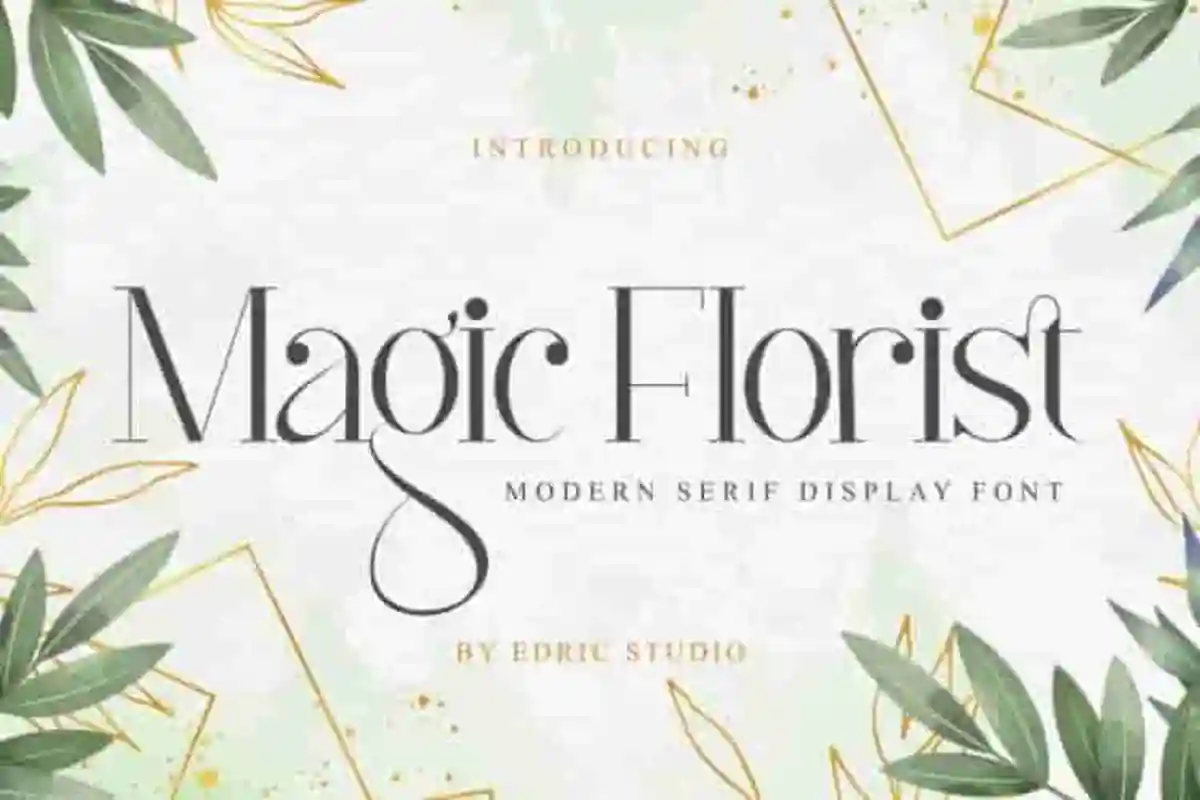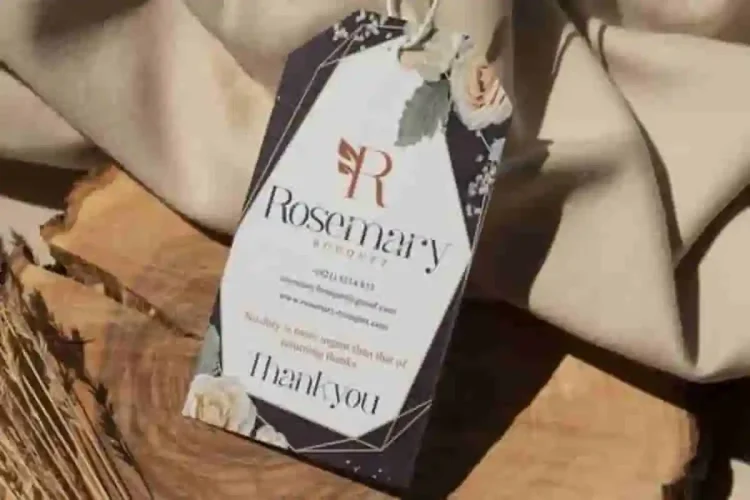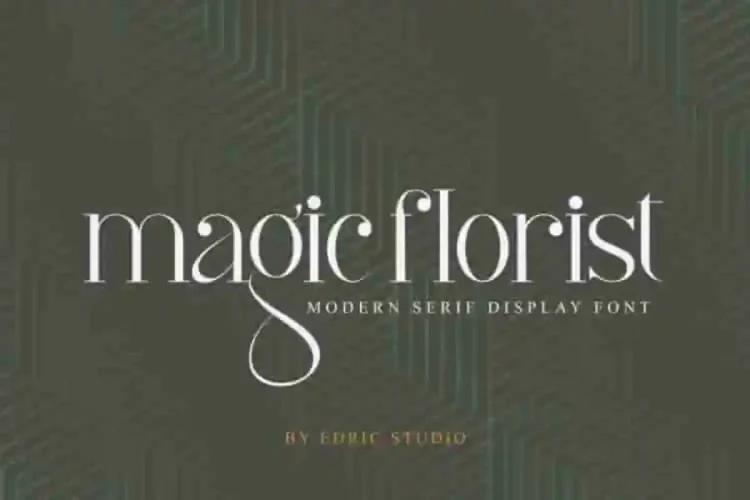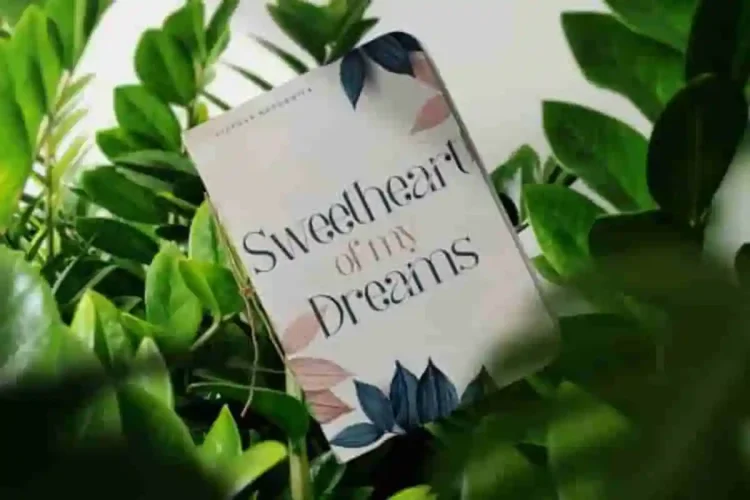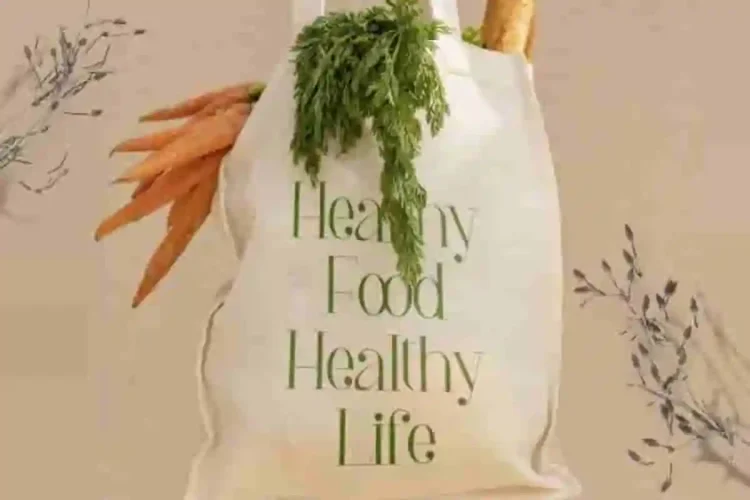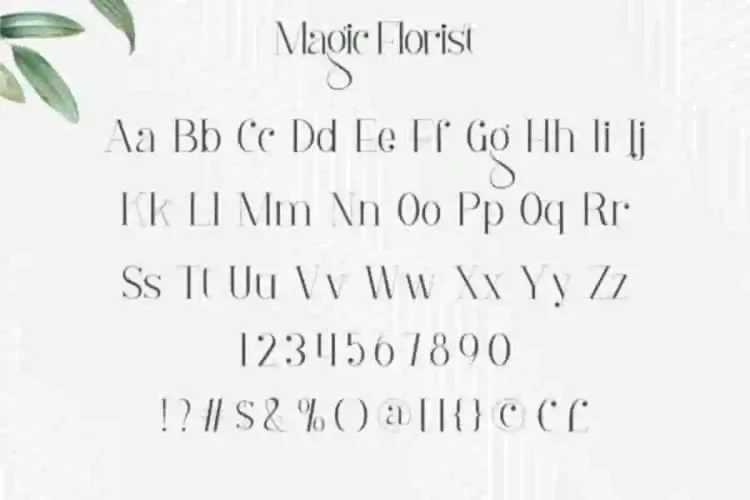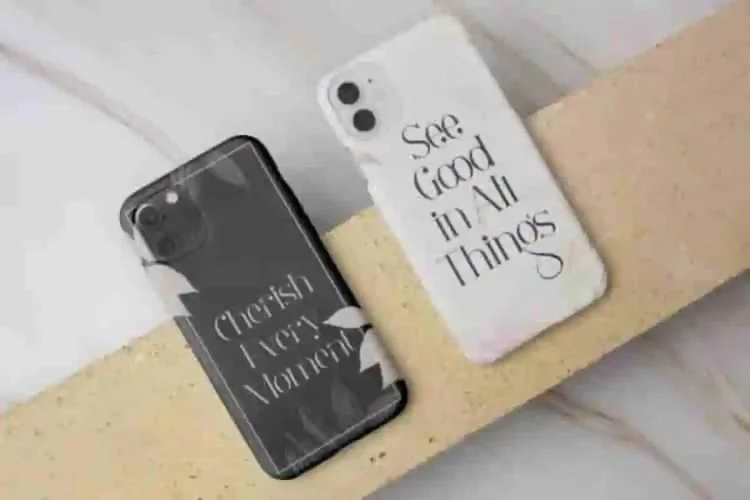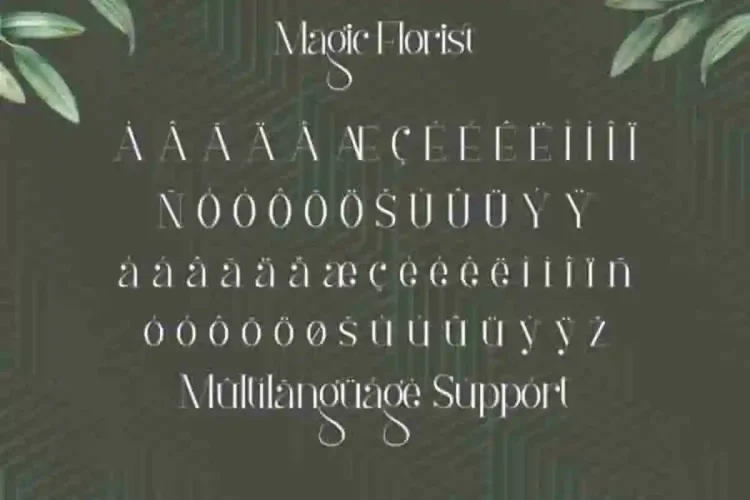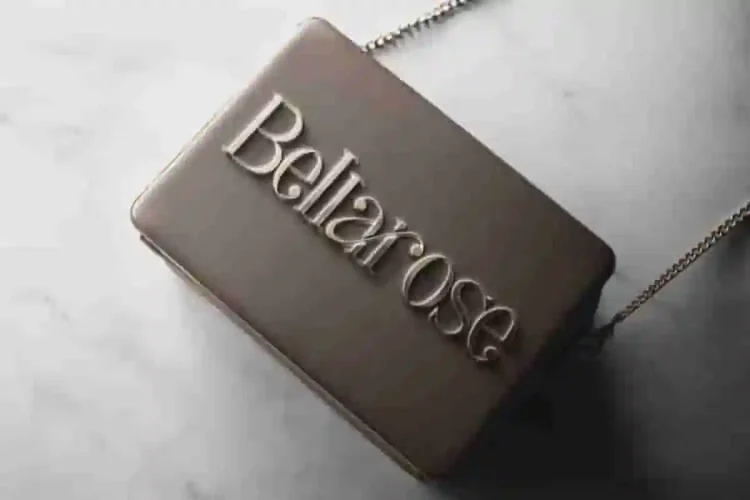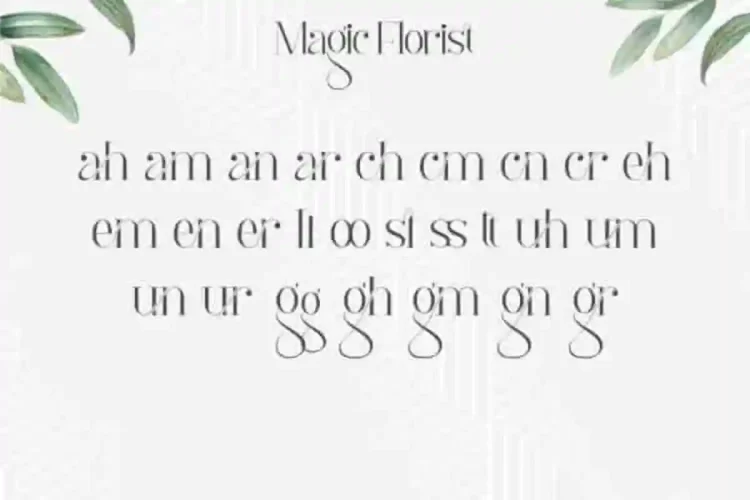
Magic Florist Modern Display Font
Magic Florist Modern Display Font is a stunning elegant serif display font with a touch of luxury created by EdricStudio. Designed with elegance and modern refinement, this font brings a high-end look to any creative project.
Magic Florist Modern Display Font comes with a complete character set, including uppercase, lowercase, numbers, punctuation, symbols, and stylish ligatures. It has a stunning characters set, perfectly managed with well spaced and kerning. Magic Florist Modern Display Font will be great for any projects (with extended license) including: brand logo, custom design, label, printed materials, quote, watermarks, title, etc.
Magic Florist Modern Font is a playful typeface with unique decoration in each character. It’s tested to work well in the Adobe Apps (Illustrator, Adobe InDesign, Adobe Photoshop) even work on Microsoft Word. PUA Encode Characters means you can access all the glyphs and other additional characters easily – Fully accessible without additional design software.